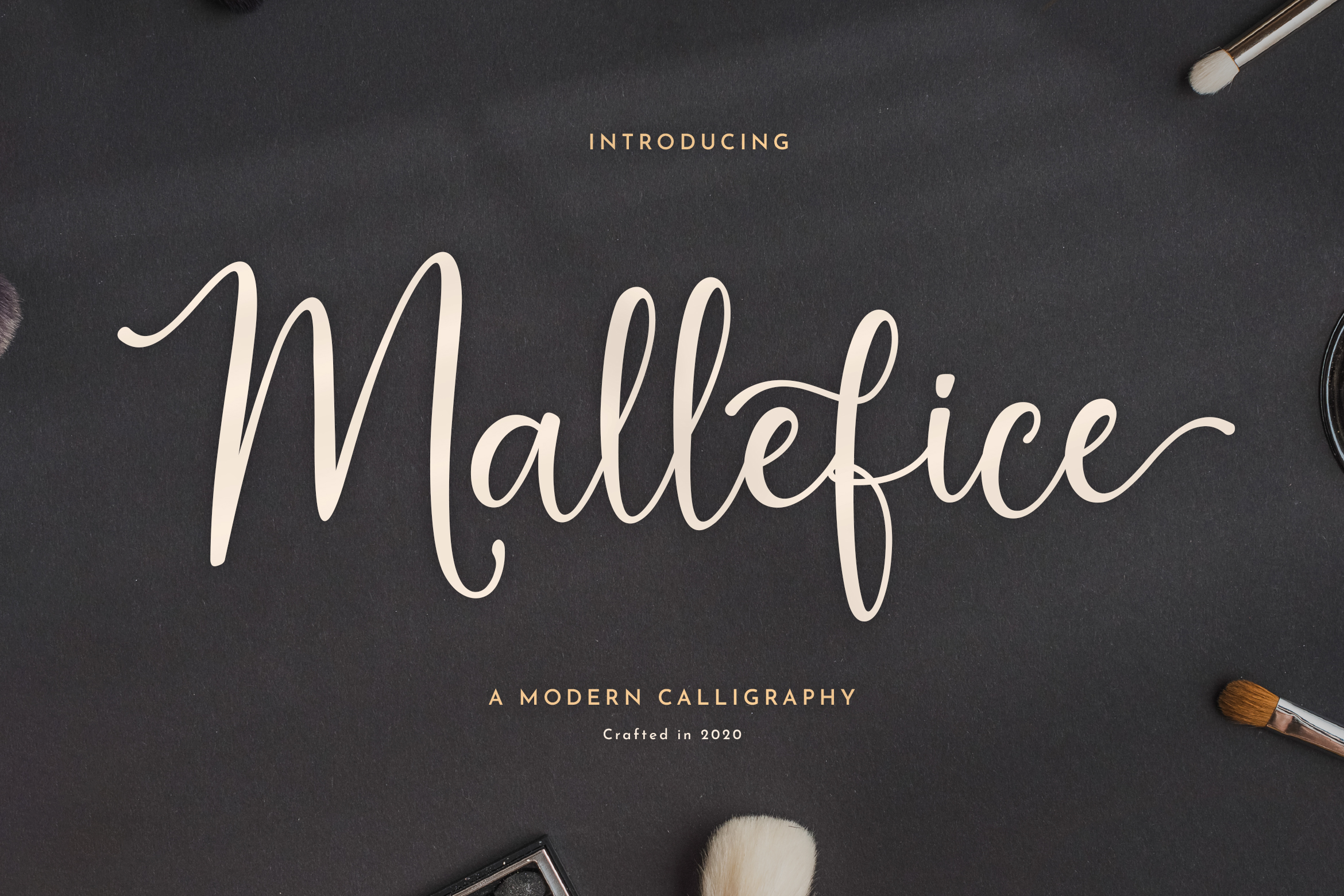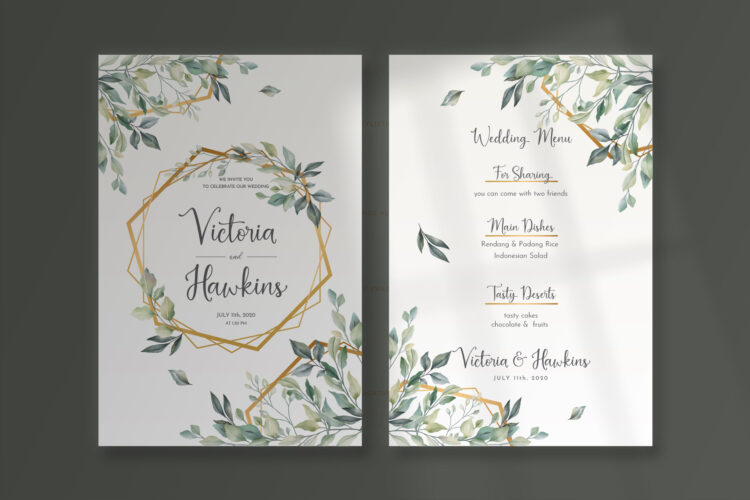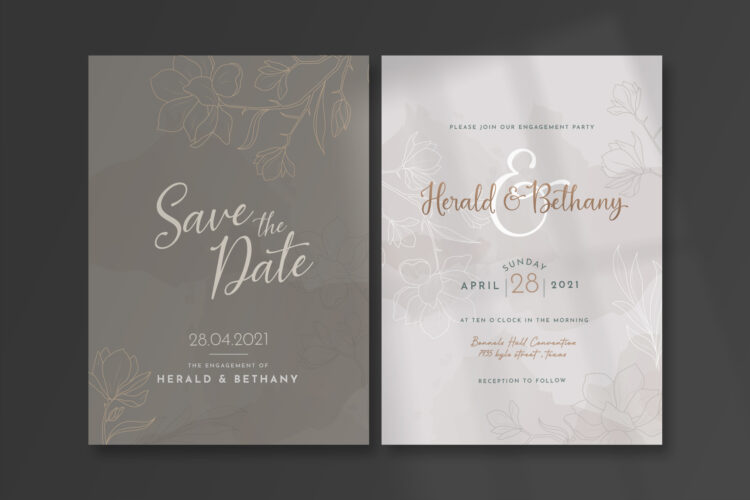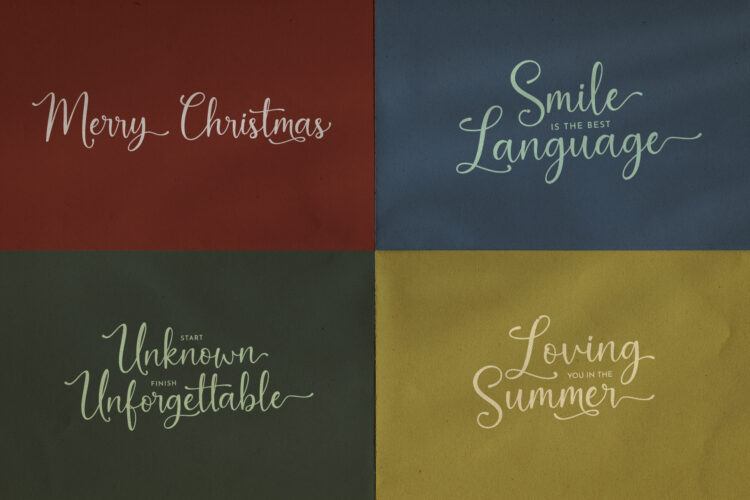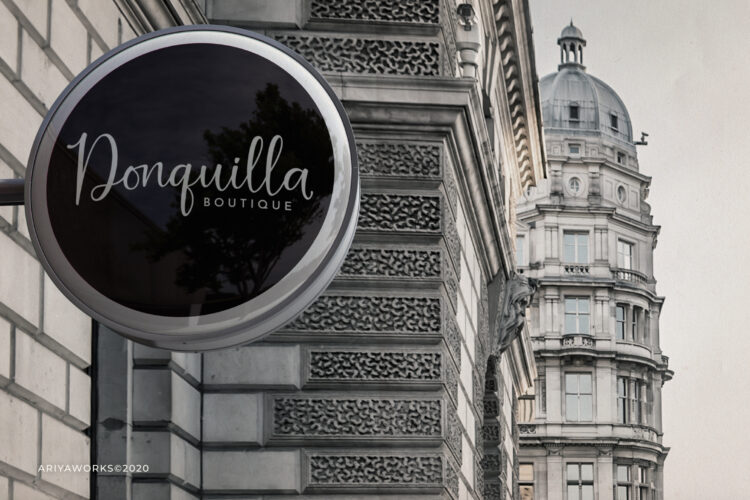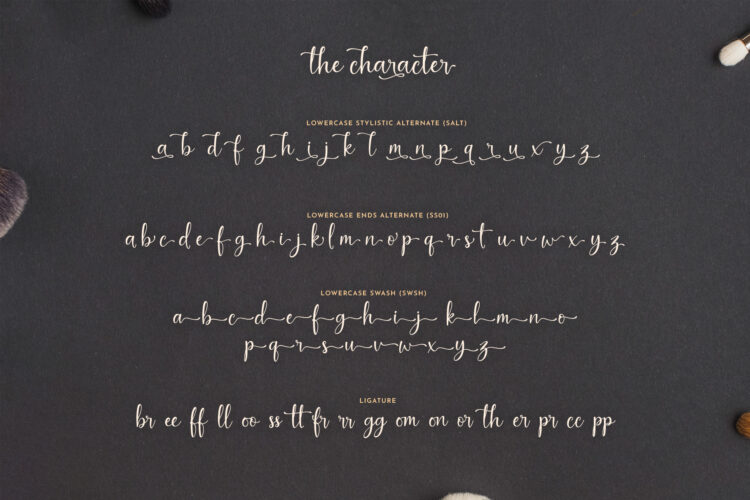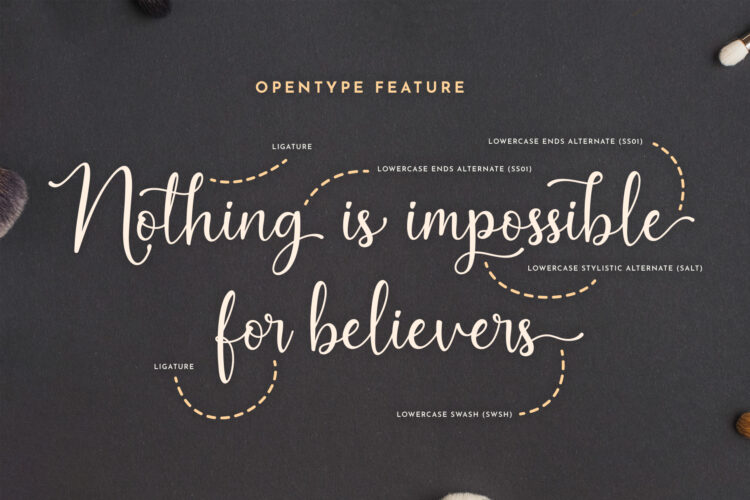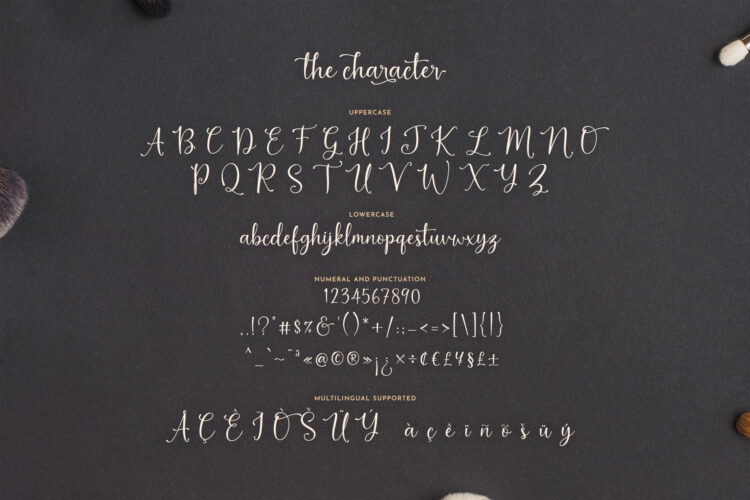
Mallefice is a charming and expressive script font that blends modern elegance with handcrafted character.
Designed with a natural flow and graceful curves, this font includes rich OpenType features such as stylish ligatures, alternate endings, swashes, and multilingual support.
Perfectly suited for branding, wedding invitations, beauty products, social media posts, and high-end packaging.
Each letter dances gracefully, offering seamless connections that elevate any creative project into a visually captivating experience.
Whether you’re a designer, entrepreneur, or content creator, Mallefice will add a personal and luxurious touch to your work.
Mallefice – Script Font